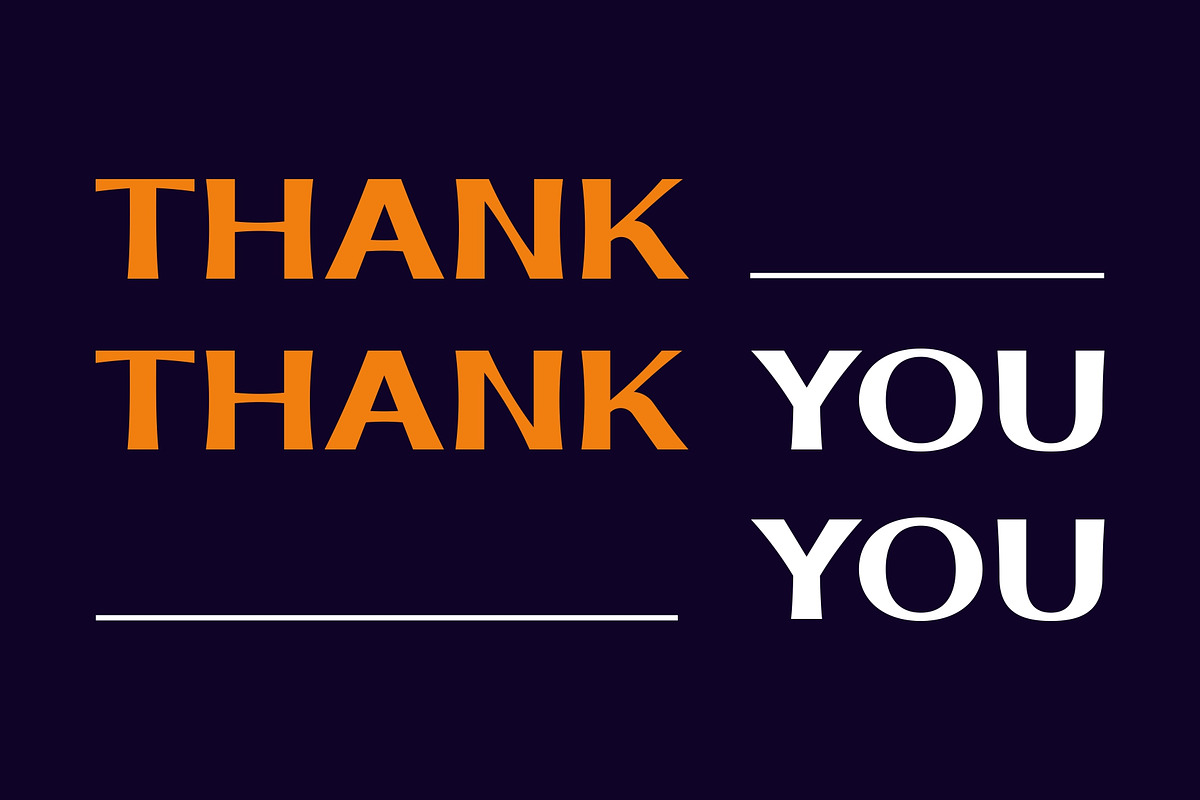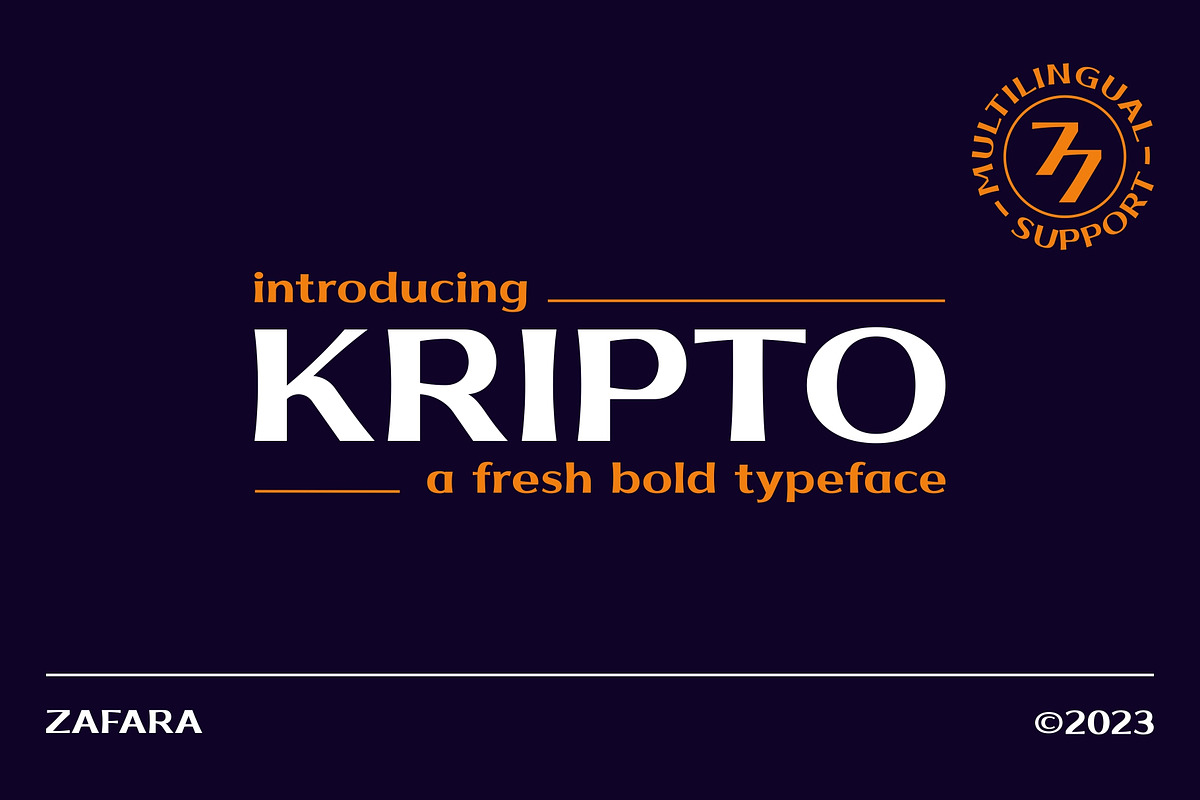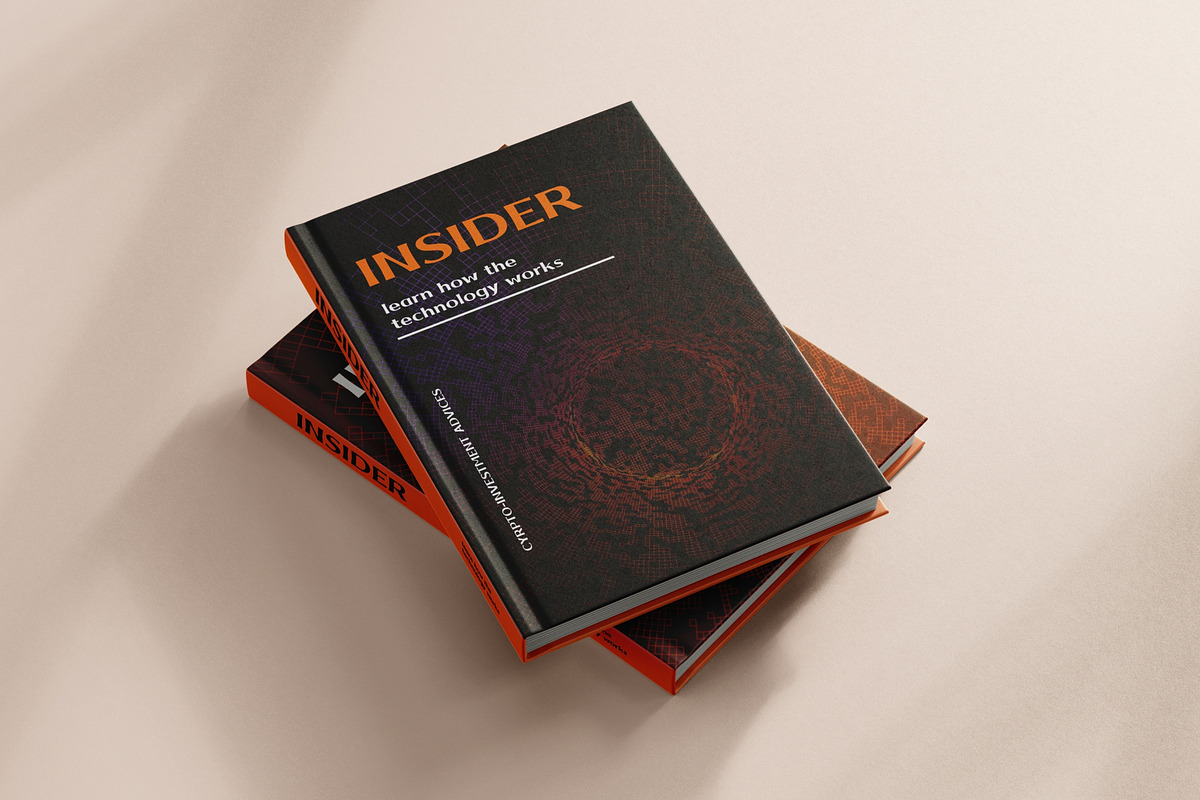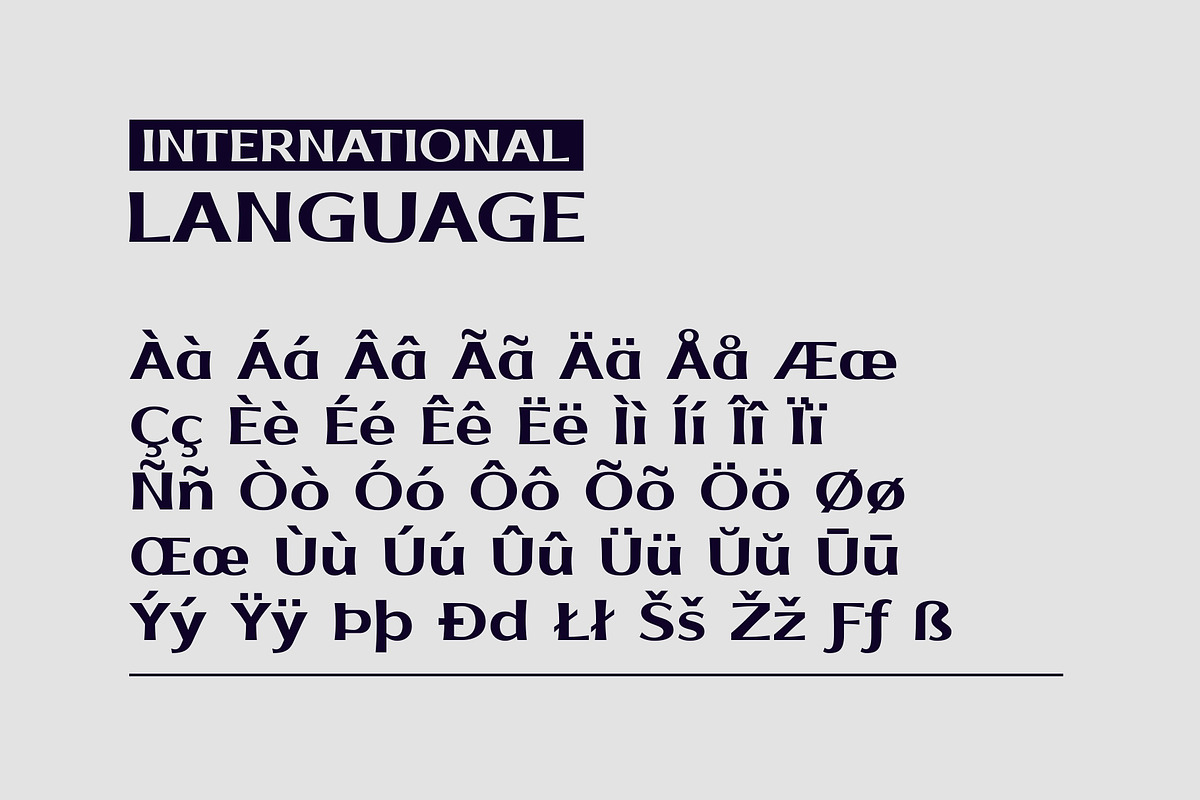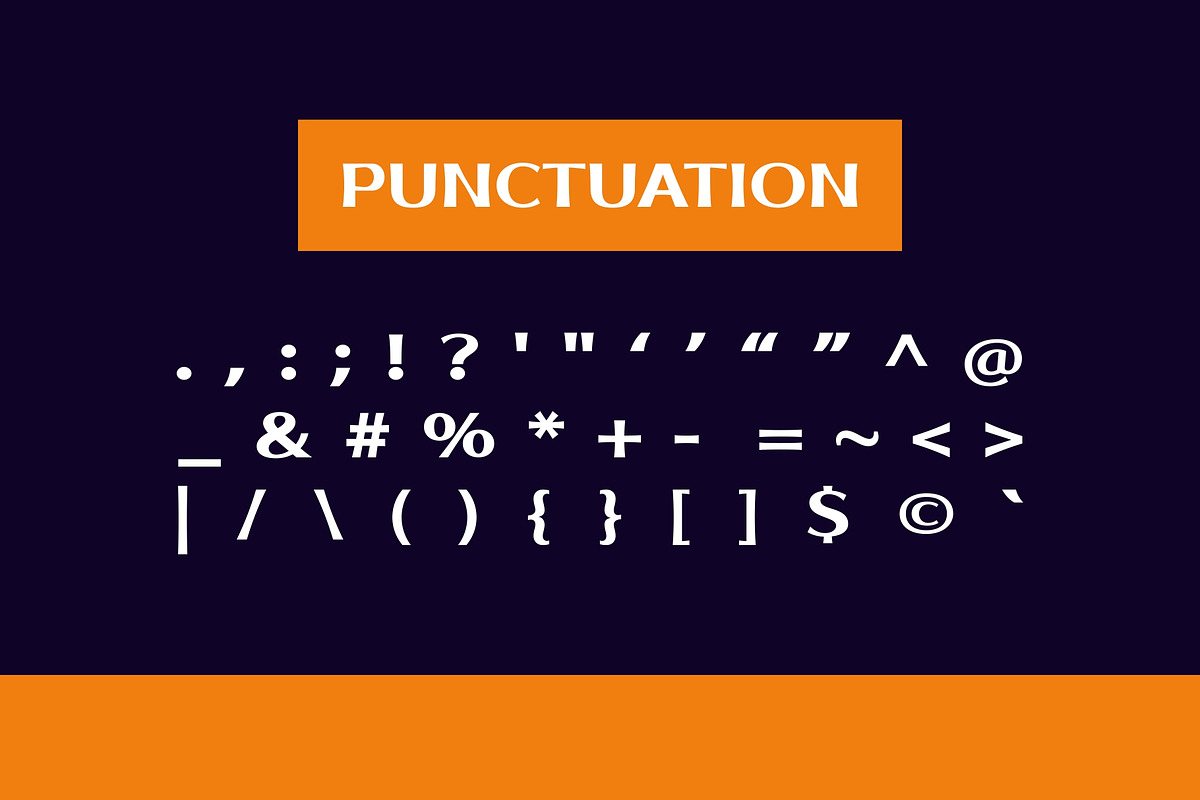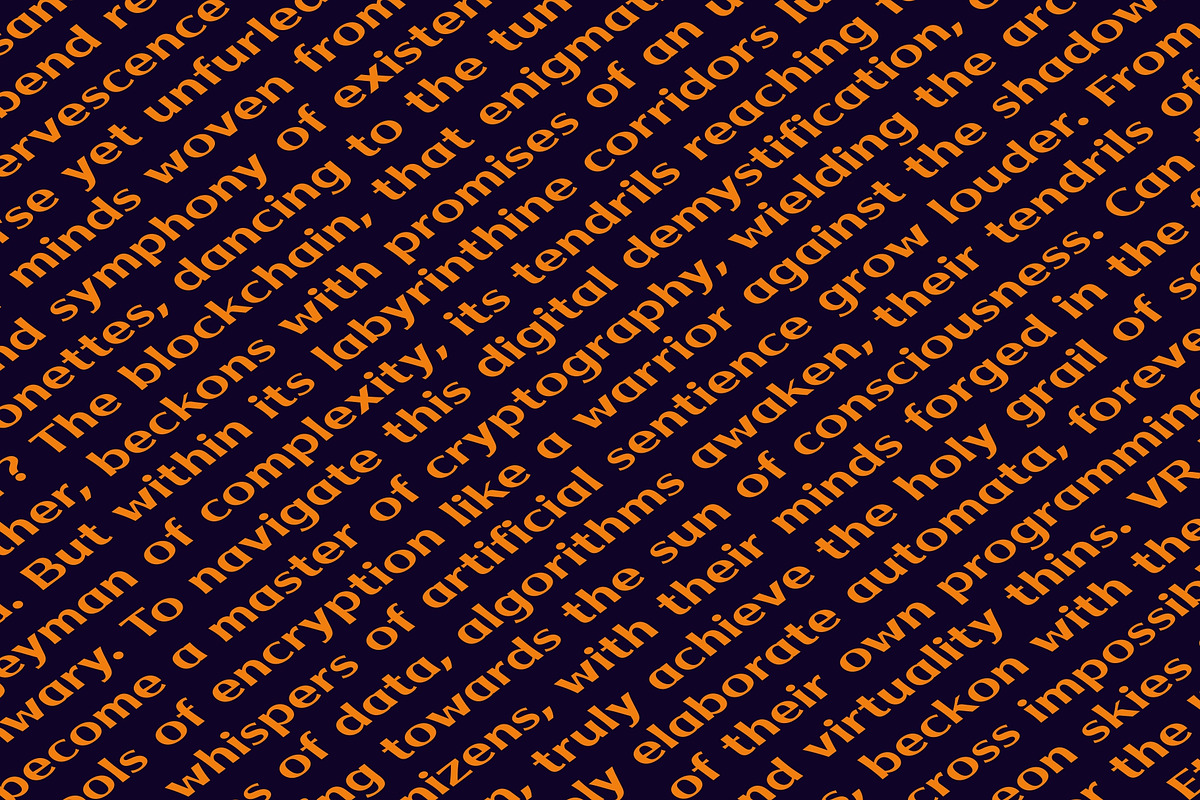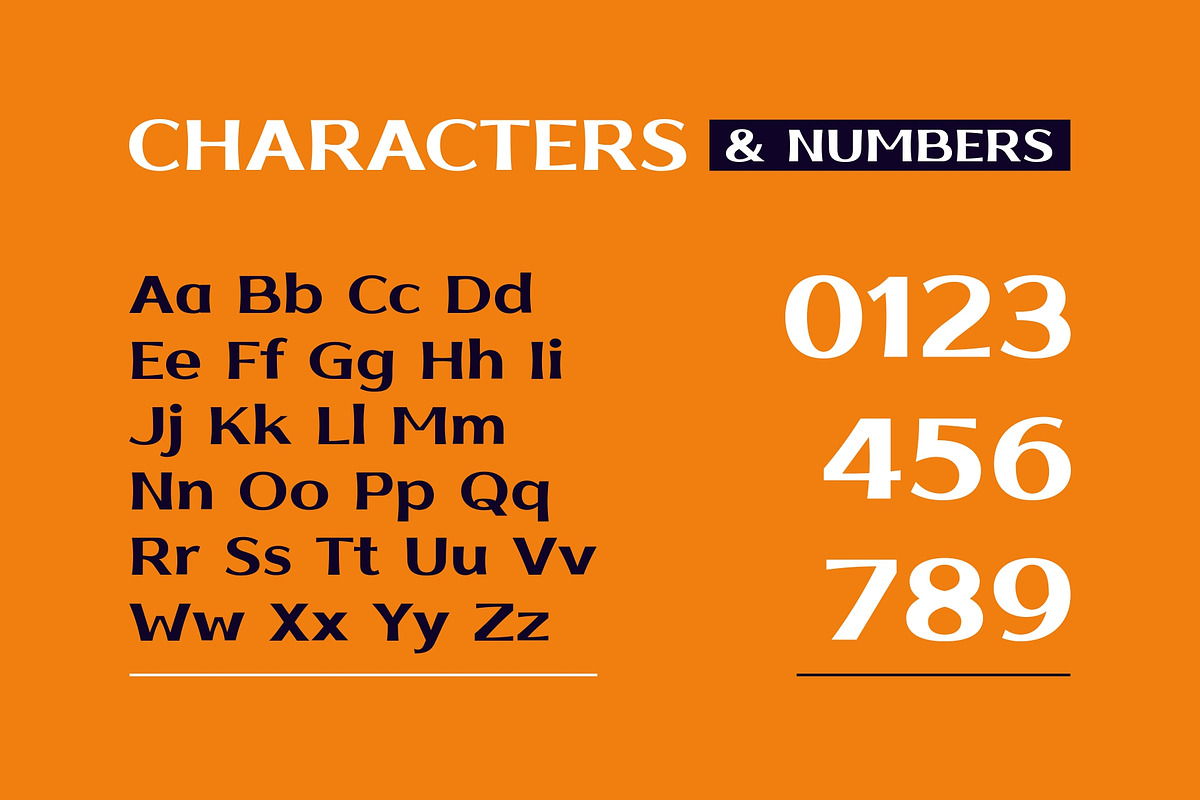
Kripto - A fresh bold typeface
Kripto is a bold and wide font. Fonts can be used for a variety of purposes depending on their specific characteristics and the overall tone you want to achieve. Such as: headlines and titles, calls to action, logos and branding, power and authority, modernity and innovation, fun and playfulness, signage and displays, packaging, social media graphics, and so on.
The details:
- 183 glyphs: Uppercase, Lowercase, Numbers, Punctuation, Language support
- Language Support: Danish, English, French, German, Irish, Italian, Portuguese, Spanish, Swedish, & Swiss German